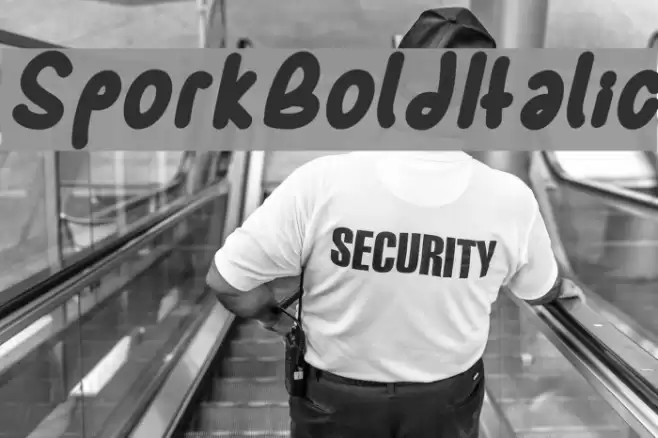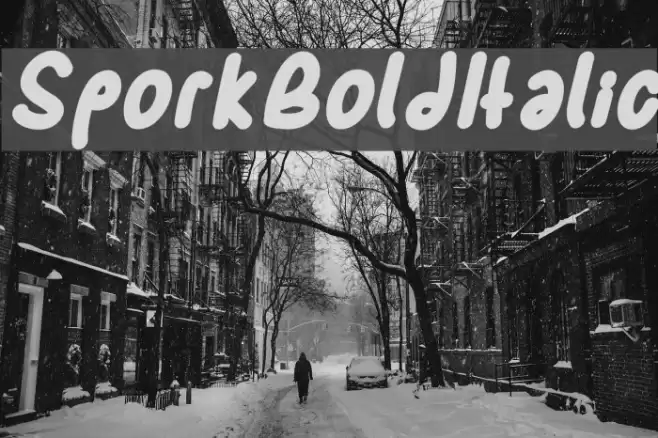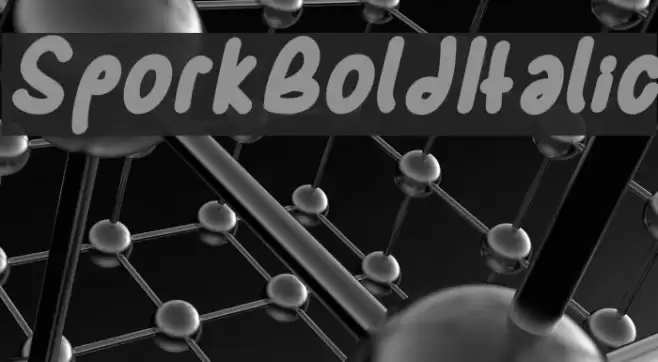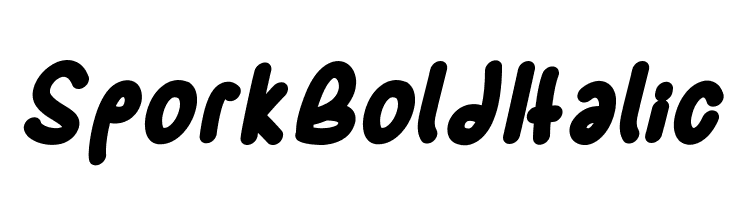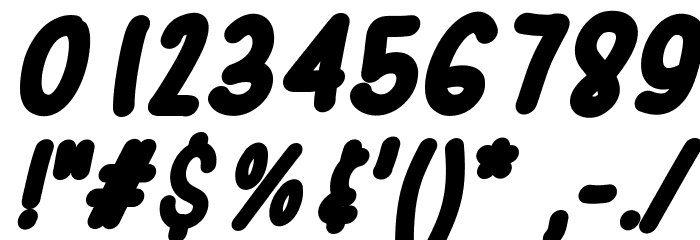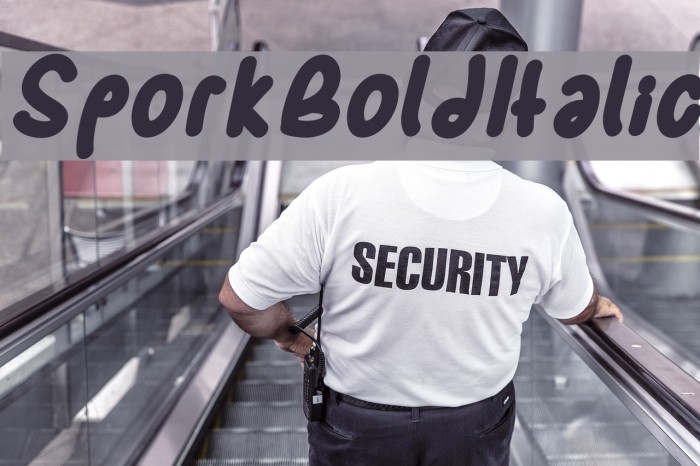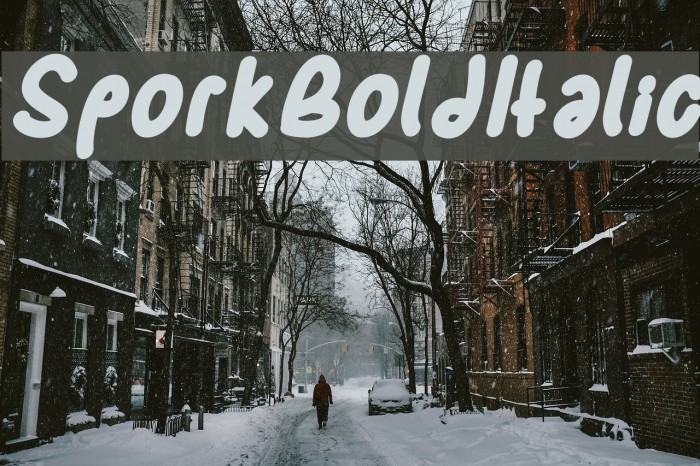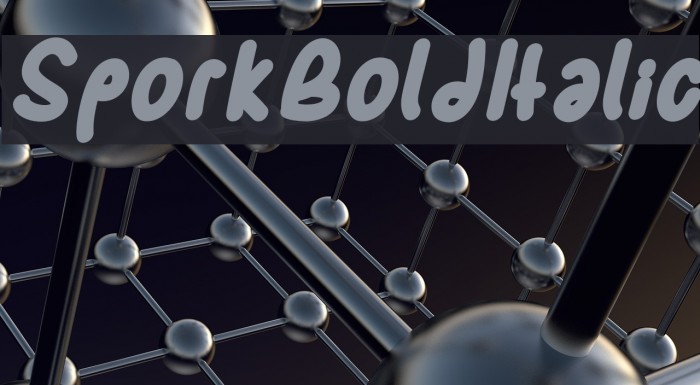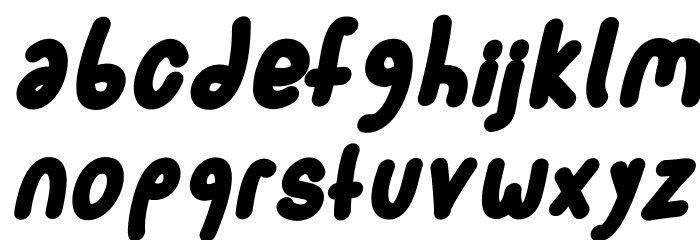
SporkBoldItalic Font
SporkBoldItalic Description
This font features a playful and bold style with a handwritten appearance. The characters are rounded and slightly slanted, giving them an italicized look. The strokes are thick and consistent, contributing to a strong visual impact. The uppercase and lowercase letters maintain a cohesive design, while the numbers and special characters are equally bold and expressive. This font exudes a casual and friendly vibe, making it suitable for projects that require a touch of personality and approachability.
A bold, playful, and italicized handwritten font with thick strokes from Comic fonts.
- Proposed Projects: Ideal for children's books, playful branding, casual invitations, and social media graphics.
- Overall Style: Playful